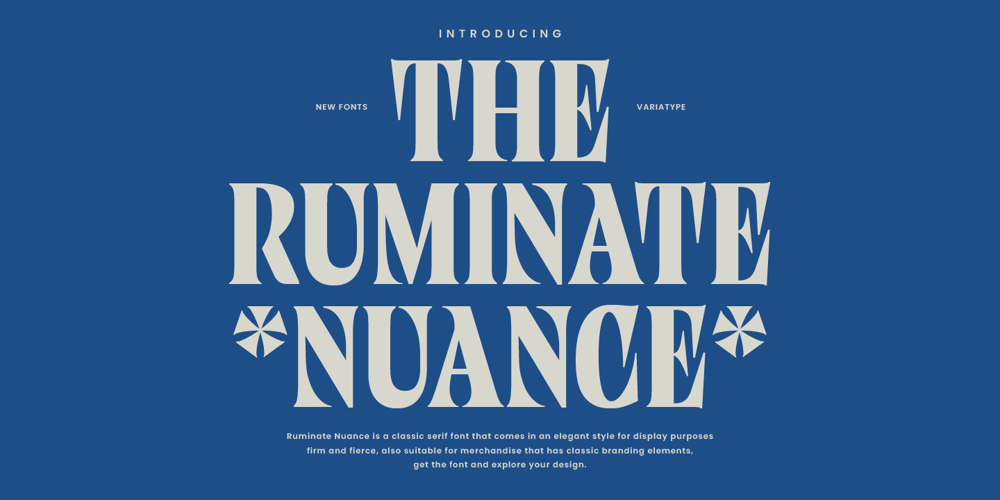
Ruminate Nuance
Ruminate Nuance font
Ruminate Nuance Font Family was designed by Faris Muafa and published by Variatype. Ruminate Nuance contains 1 styles and family package options. Step into a world of nostalgic charm and prestigious elegance with The Ruminate Nuance, a bold serif font that pays attention to the golden age of typography. Inspired by vintage signage and classic print advertisements, The Ruminate Nuance captures the essence of yesteryear with its bold strokes, refined serifs, and distinctive character.FONT FEATURES Additional Accents 66 Languages Kerning SOFTWARE RECOMMENDATION Adobe Photoshop CC 2020 or later Adobe Illustrator CC 2020 or later